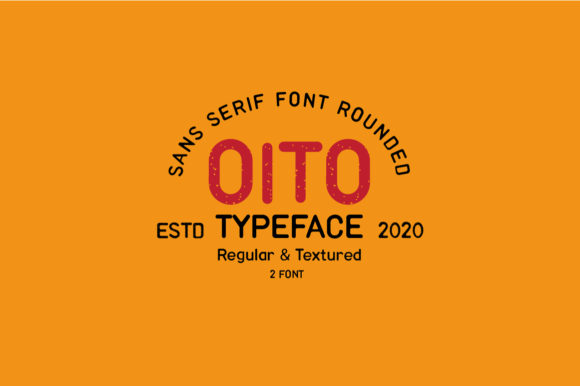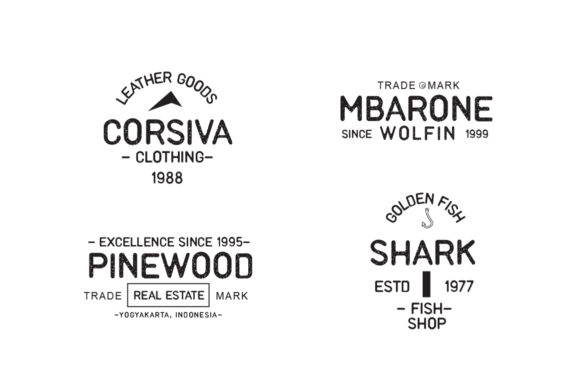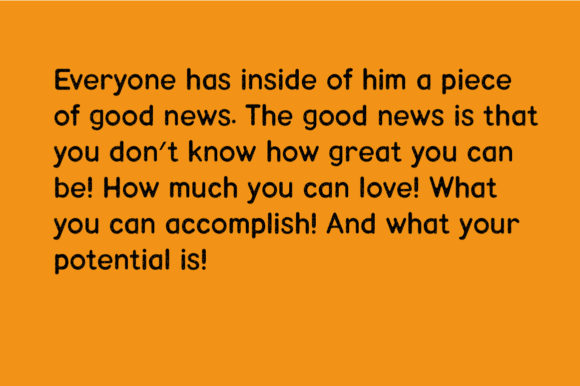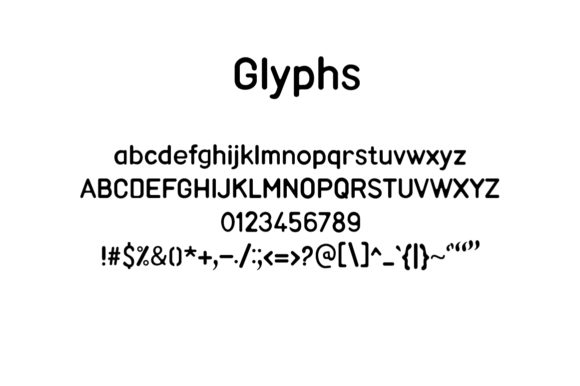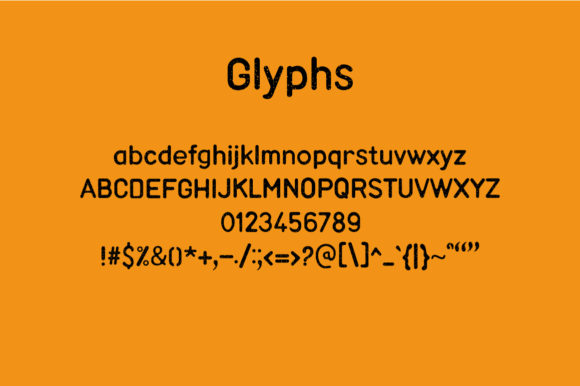
Oito
About Oito Font
Oito is a simple and neat sans serif font. It can easily be matched to an incredibly large set of projects, so add it to your creative ideas and notice how it makes them stand out!